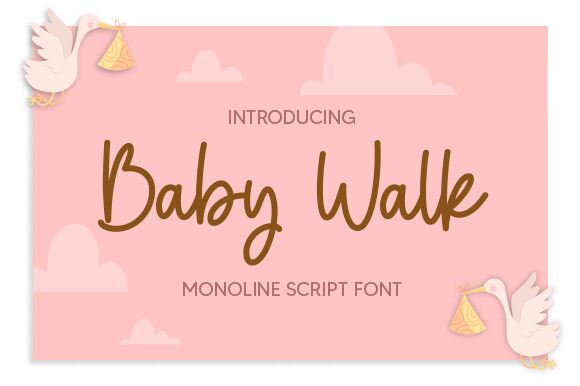
Baby Walk
Baby Walk is a charming monoline script font designed by Graphix Line Studio. With its semi-light weight, it exudes an airy and delicate feel, making it perfect for designs that require a touch of elegance and sophistication. The flowing strokes of Baby Walk adds a sense of whimsy to any project, from wedding invitations and greeting cards to logos and branding materials. Its versatility makes it suitable for various design styles, such as vintage, bohemian, or modern chic. Give your designs a playful yet refined look with Baby Walk font typeface!